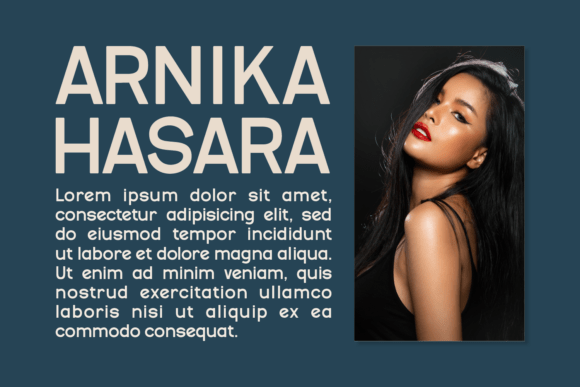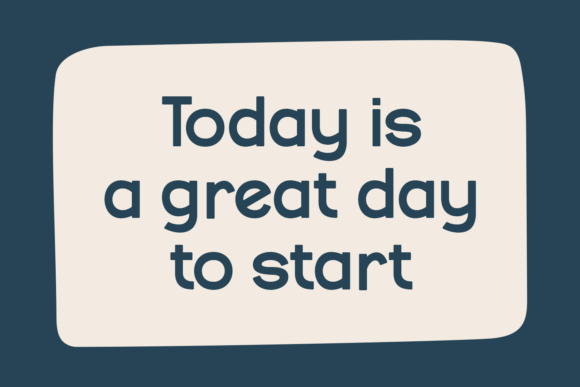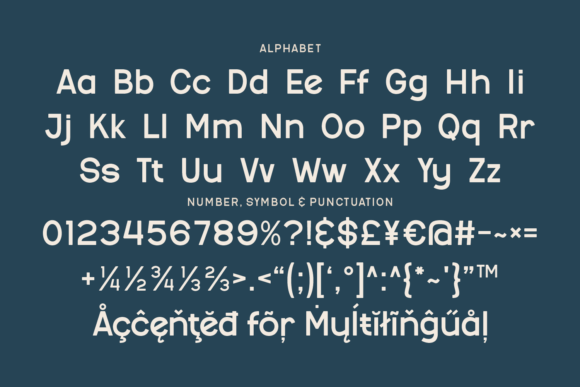
Introduction to Clever Enough Font
Clever Enough font is a sophisticated and modern sans-serif typeface that embodies the “Quiet Luxury” aesthetic.
This Clever Enough typeface features perfectly balanced geometric shapes and subtle curves, creating a look that is both timeless and trendy Clever Enough font is specifically designed for luxury branding, corporate identities, and high-end web design where clarity and “smart” design are paramount.
Key Features of Clever Enough Font
Why Choose Clever Enough Font?